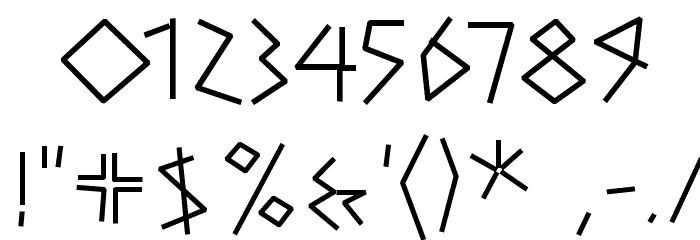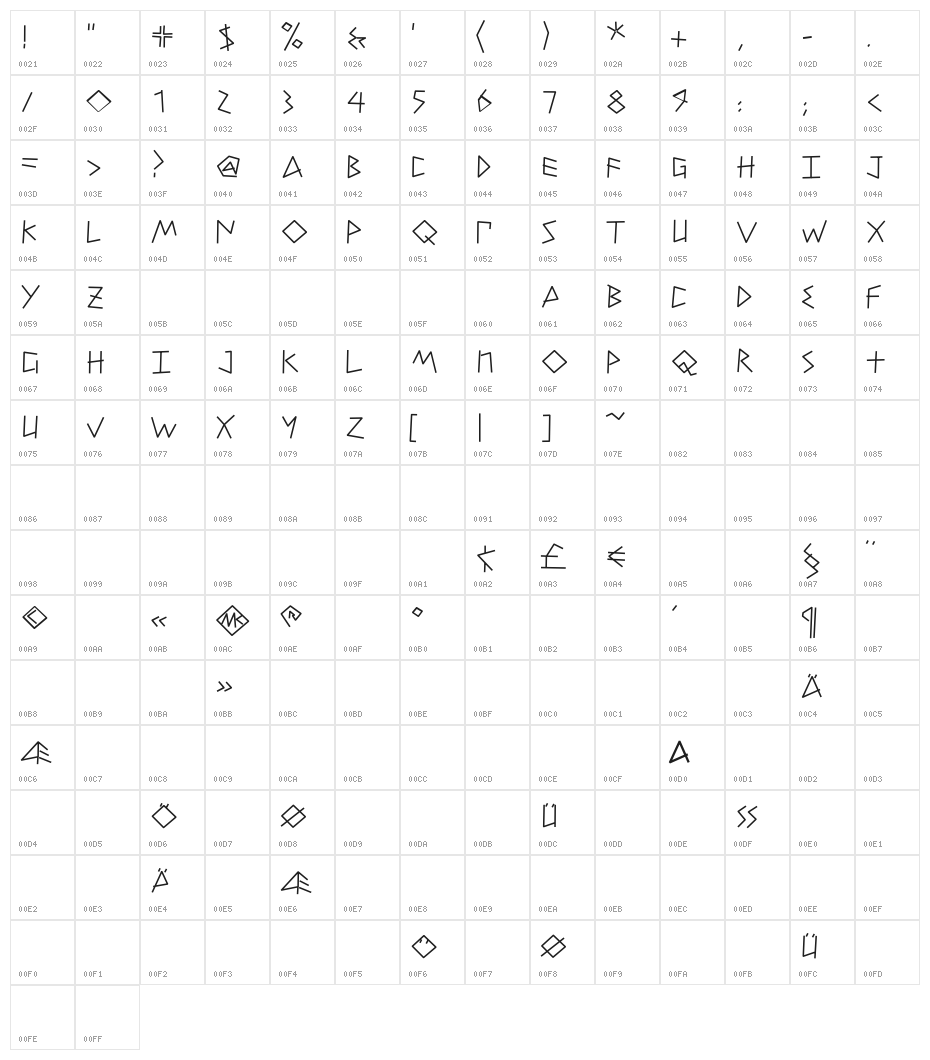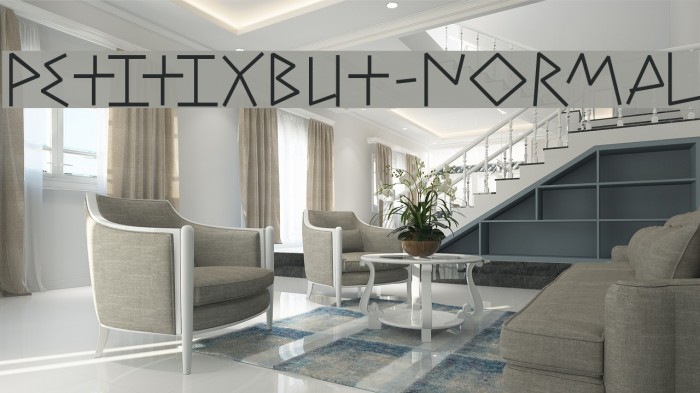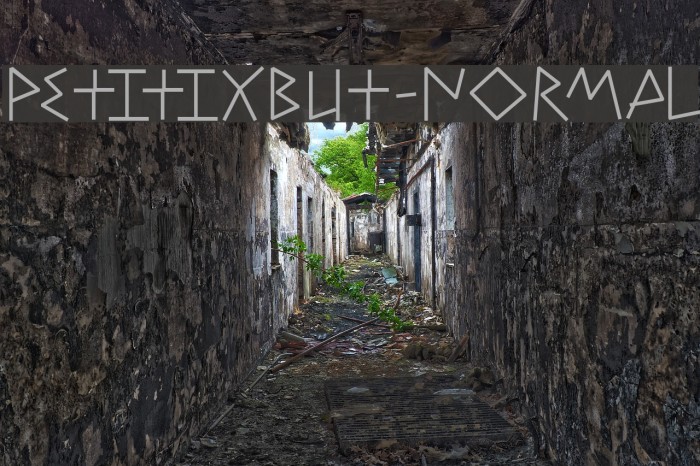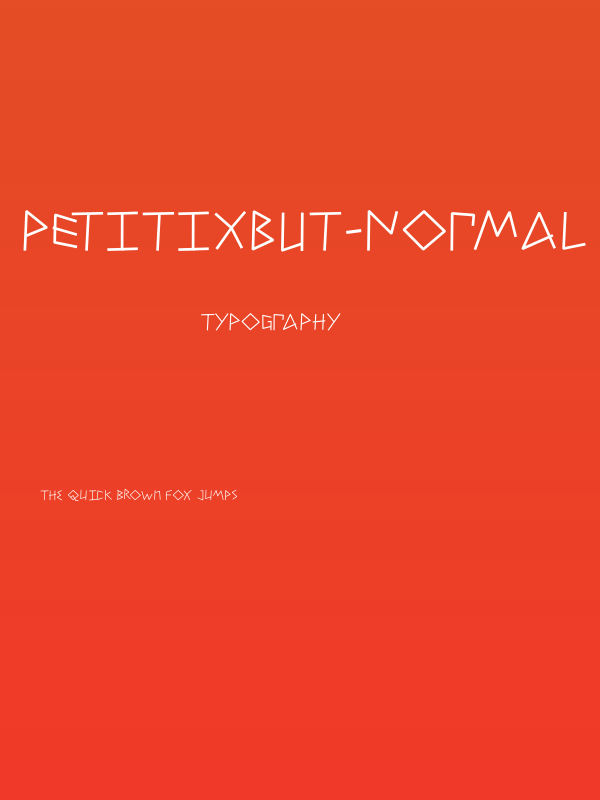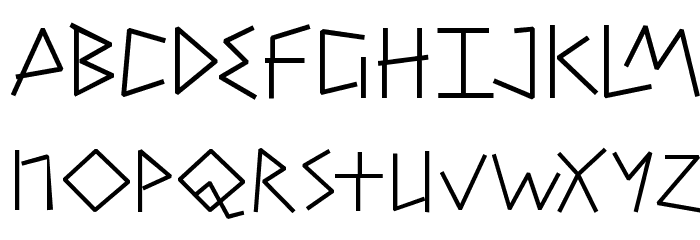
PetitixBut-Normal Font
PetitixBut-Normal Description
This font features a unique, angular design with a geometric and futuristic feel. The characters are composed of straight lines and sharp angles, giving it a distinct, edgy appearance. The uppercase letters are bold and commanding, while the lowercase letters maintain the same angular style, creating a cohesive look. The numerals and special characters follow the same design principles, ensuring consistency across all glyphs. This font's modern and unconventional style makes it stand out, perfect for projects that require a bold statement.
| Proposed Projects | Ideal for sci-fi themed projects, modern branding, posters, and digital artwork. |